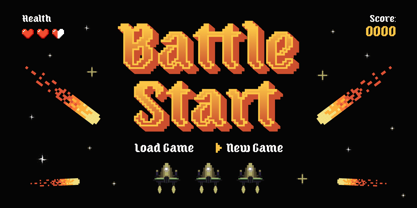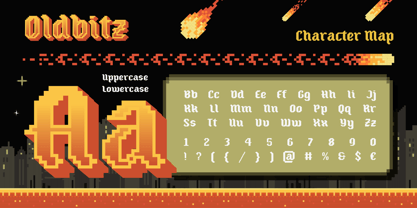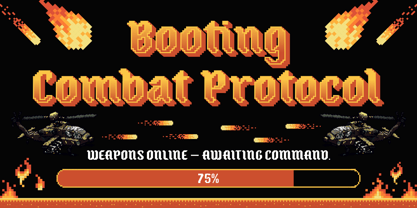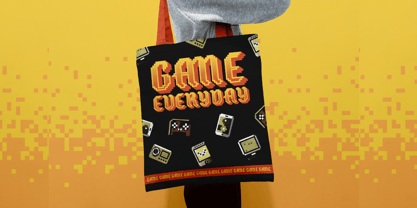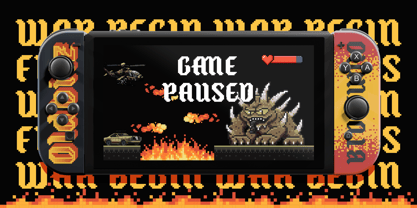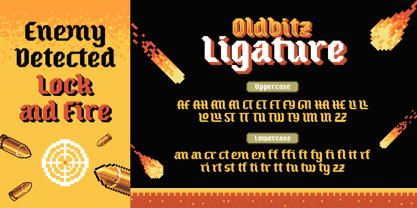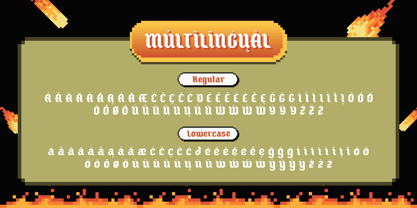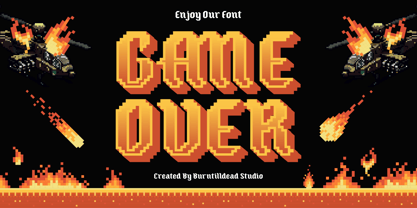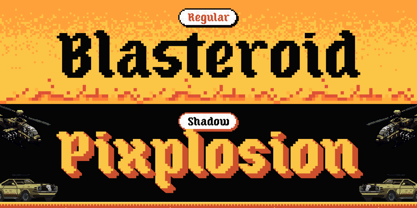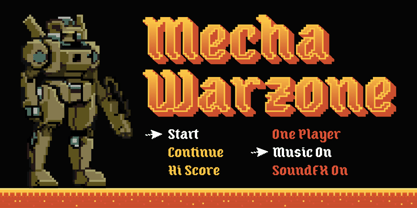
Oldbitz
Die Schriftfamilie Oldbitz wurde von Eric Kurniawan entworfen und von Burntilldead veröffentlicht. Oldbitz enthält 2 Stile und Familienpaketoptionen. Mehr über diese Familie
Time to bring back the golden age of pixels with Oldbitz! This bold display font mixes retro arcade vibes with chunky pixel strokes and a touch of vintage gothic style.
Oldbitz comes in 2 styles to fit your creative mood, Regular (clean, strong, and perfect for straightforward titles). Shadow (playful, bold, with a retro 3D arcade punch).
So if you’re designing game covers, posters, album art, or anything that craves nostalgic vibes, Oldbitz will make your design unique and stand out.
Bring back the pixels, bring back the fun.